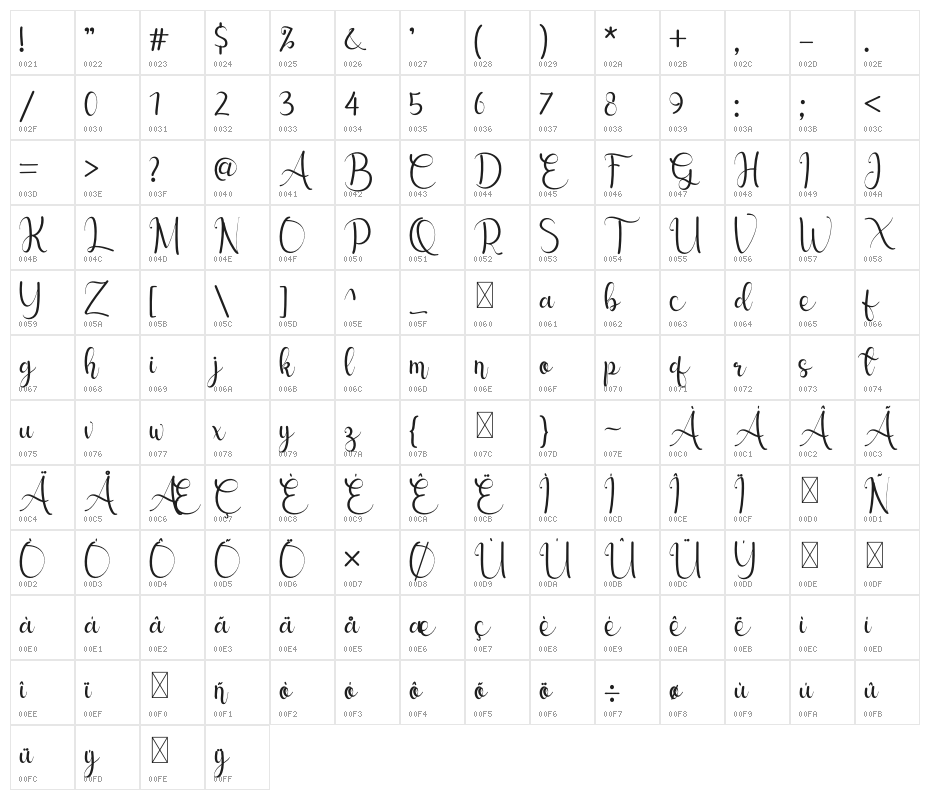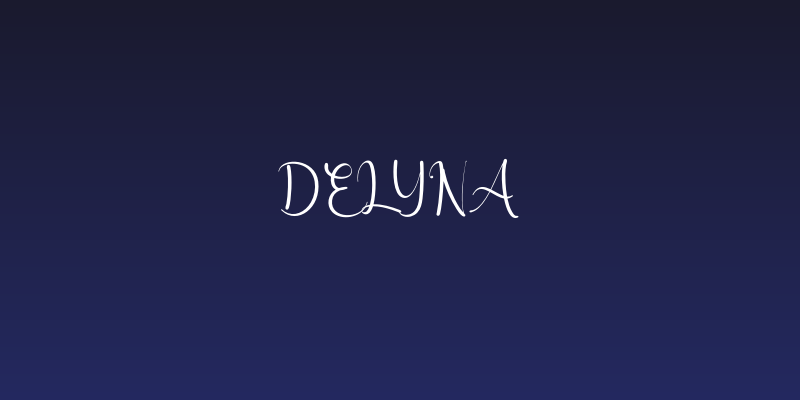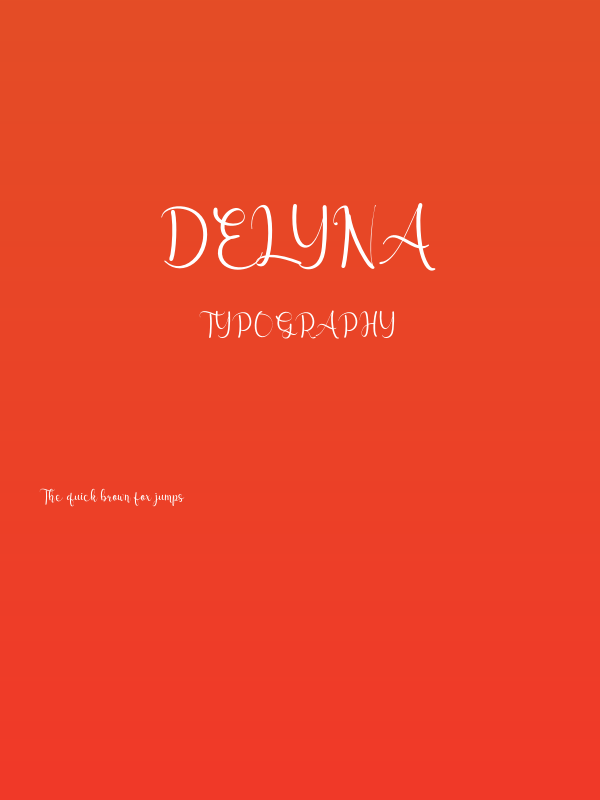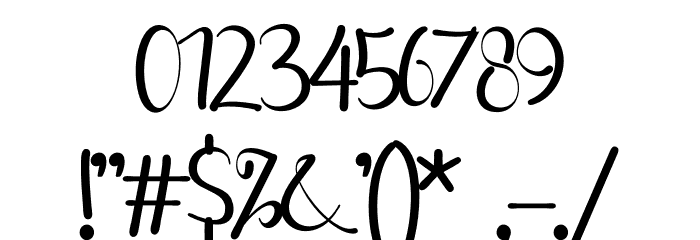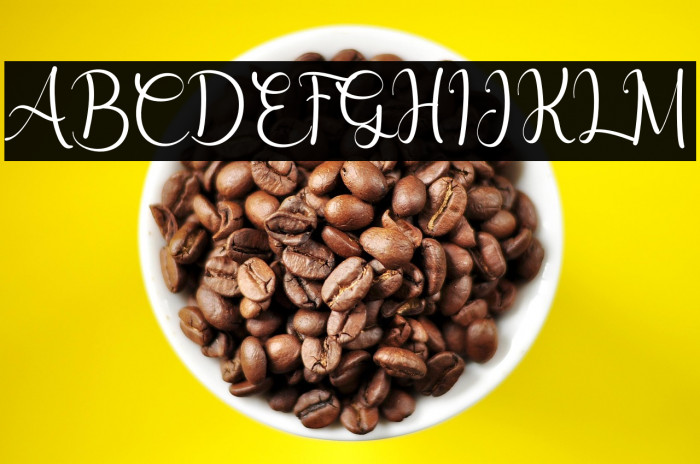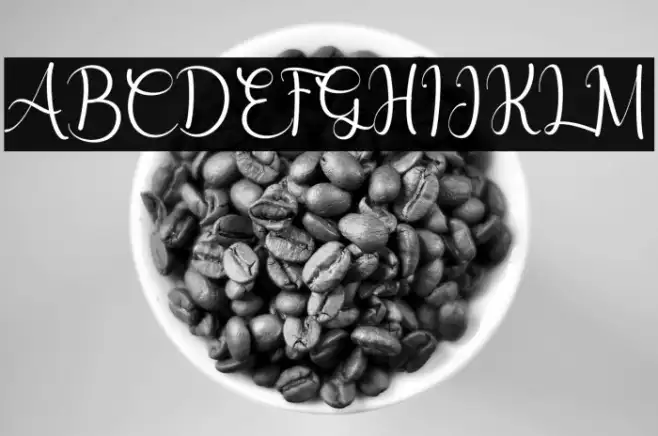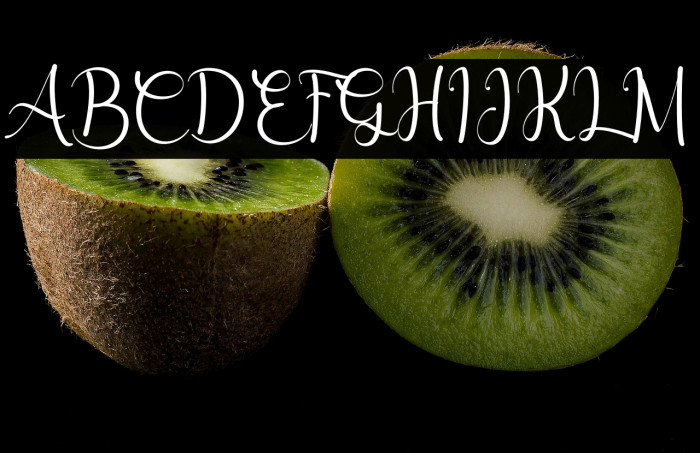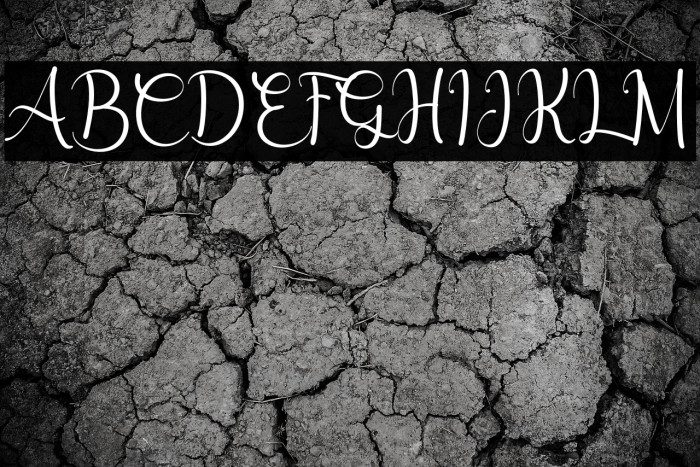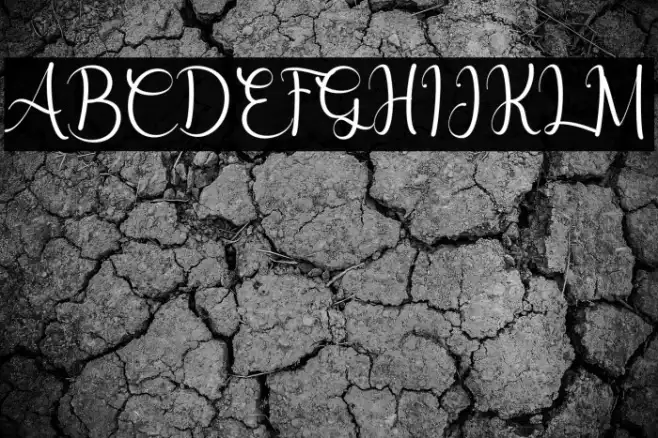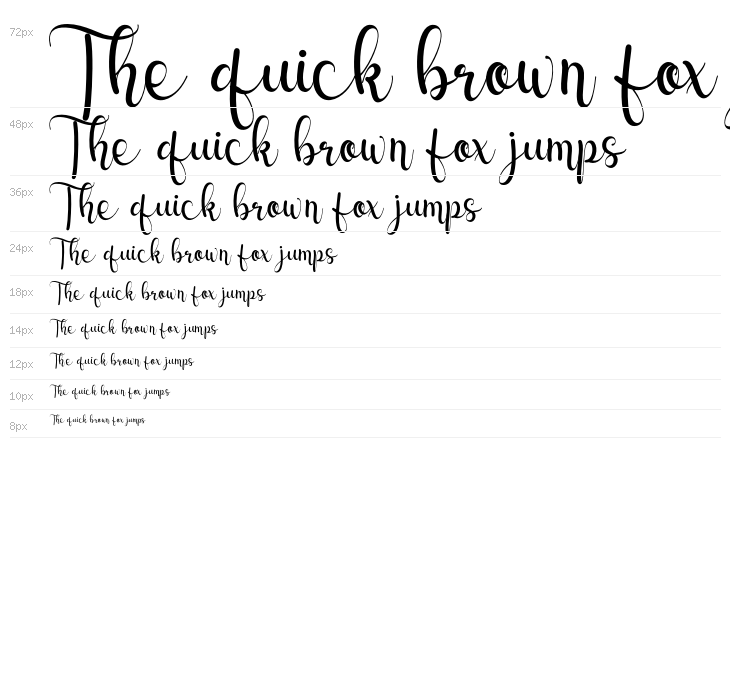
Delyna Font
Delyna Description
This font features an elegant and flowing script style, characterized by its smooth, cursive strokes and a harmonious balance between thick and thin lines. The uppercase letters exhibit a graceful flair with extended loops and swashes, while the lowercase letters maintain a consistent rhythm with rounded forms and subtle connections. The numerals are stylishly integrated, matching the overall aesthetic with their curvy and fluid design. Special characters are thoughtfully crafted, adding to the font's versatility and charm. This font exudes a sense of sophistication and creativity, making it suitable for a variety of design applications.
| Overall Style | Elegant, Sophisticated |
| Proposed Projects | Ideal for wedding invitations, greeting cards, branding projects, and elegant packaging designs. |